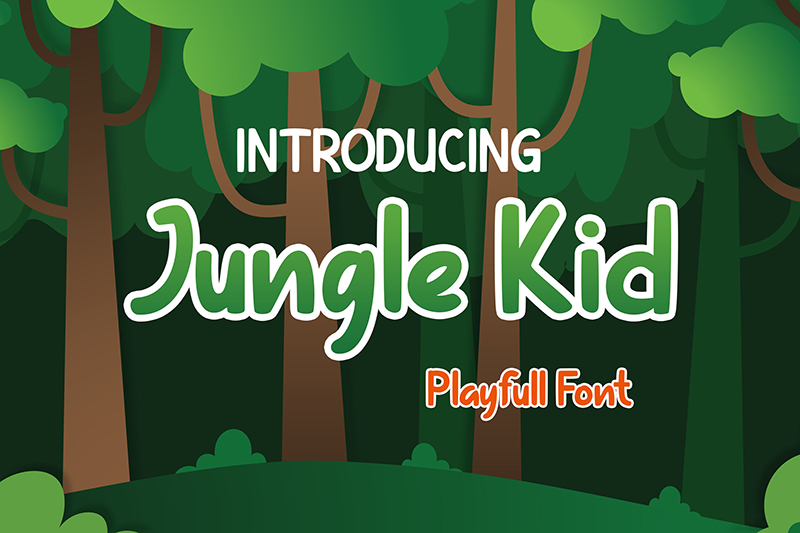
Preview and download Jungle Kid Font. Created by Dacatype Studio in Fancy Cartoon styles with Free for personal use license.
Hello there, Thank you for downloading Jungle Kid Font. Little explanation abaout this font. Jungle Kid is a playful and friendly display font. This font is perfect for children themed designs, especially when combined with bright colors. NOTE: This font is for PERSONAL USE ONLY! But any donation are very appreciated. Paypal account for donation : https://www.paypal.me/Dacatype Link to purchase commercial license: https://www.creativefabrica.com/product/jungle-kid/ref/830331/ If you need an extended license or corporate license, please contact us at dacatype@gmail.com You can visit our store for more great fonts : https://www.creativefabrica.com/designer/dacatype-studio/ref/830331/ If there is a problem, question, or anything about my fonts, please sent an email to dacatype@gmail.com THANK YOU! |